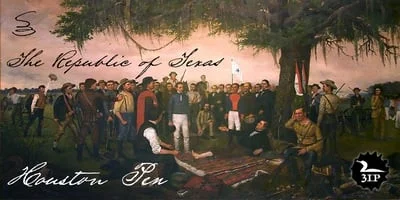
Houston Pen Font
Houston Pen Font is perfect for handwritten letter designs, personal journal layouts, signature collections, calligraphy workshop materials, handmade greeting cards, artisanal product labels, personal branding projects, intimate wedding invitations, heartfelt thank you notes, and authentic handwriting recreations.
What makes Houston Pen Font exciting is its genuine handwritten charm and personal intimacy that captures the authentic feel of pen-on-paper writing with natural flow and human warmth. This distinctive typeface embodies the essence of personal correspondence with its organic character forms and handwritten proportions that evoke fountain pen strokes, personal letters, and the intimate connection that comes from handwritten communication. The font's personal character creates an immediate sense of authenticity and human touch that makes digital text feel genuinely handcrafted.
Houston Pen Font family includes regular weight with naturally crafted character designs featuring handwritten curves and pen-stroke proportions. The typeface maintains excellent readability while showcasing its distinctive handwriting personality through organically designed letterforms that seem written by an actual pen with the natural variations and personal character of authentic handwriting.
Design professionals consistently choose Houston Pen Font for projects requiring authentic handwritten appeal and personal credibility. This remarkable typeface brings the warmth of personal handwriting to digital communications, combining organic aesthetics with human authenticity to create intimate reading experiences. The naturally designed characters ensure personal impact across all applications, making it essential for personal brands, artisan businesses, and any organization seeking to communicate the genuine warmth and authentic human connection that comes from embracing the personal touch of handwritten communication through Houston Pen Font.